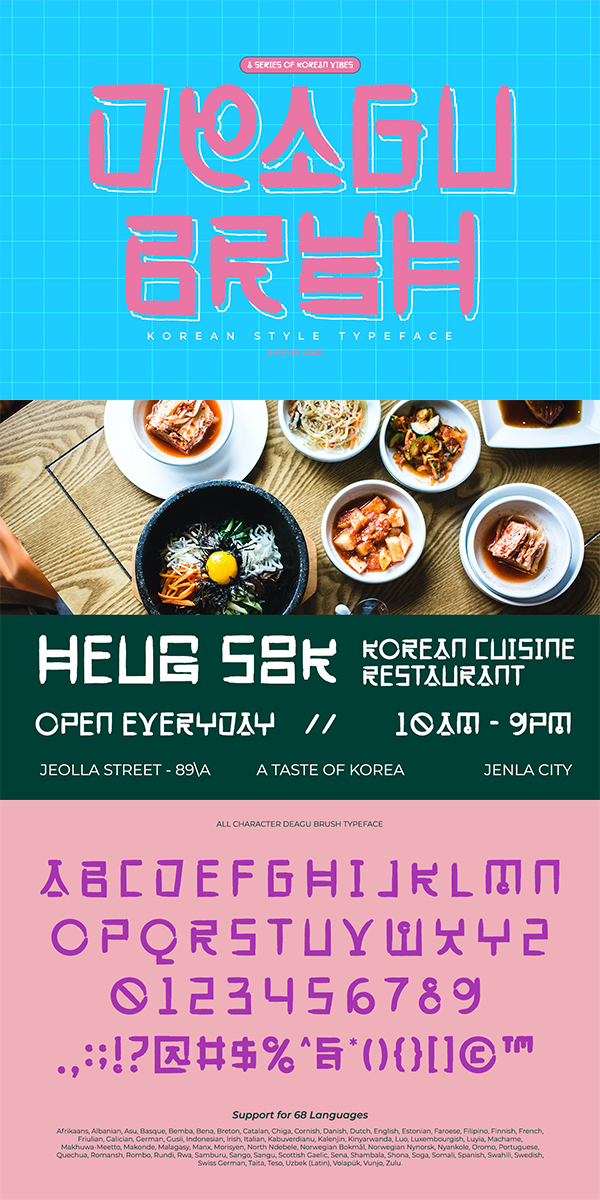
Daegu Brush Font
About Daegu Brush
Daegu Brush is a captivating display font that beautifully marries the essence of Korean artistic tradition with the modern flair of brush stroke artistry. This font is an embodiment of cultural richness, reflecting the vibrant energy and creative spirit of its namesake city, Daegu.
At the heart of Daegu Brush’s design is its meticulous brushwork. Each character is crafted with detailed, expressive brush strokes, giving the font a dynamic, hand-painted feel. This attention to detail ensures that each letter carries a sense of individuality and craftsmanship, making the font not just a tool for text but a collection of art pieces.
The Korean style of Daegu Brush is evident in its letterform structures, drawing inspiration from the elegant, flowing shapes found in traditional Korean calligraphy. This adds a level of authenticity and cultural depth to the font, making it an excellent choice for projects that wish to convey a strong sense of Korean heritage and artistic beauty.
Daegu Brush fits in headlines, logos, posters, flyers, branding materials, greeting cards, print media, editorial layouts, and many more designs. Find out more ways to use this font by taking a look at the font preview.